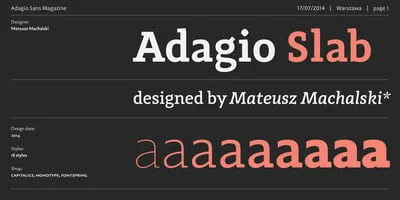
Adagio Slab Font
Adagio Slab Font is ideal for classical music venues, symphony orchestra branding, music conservatory materials, elegant concert hall signage, classical performance promotions, music education publications, opera house communications, chamber music festival graphics, piano recital programs, and sophisticated musical event advertising.
What makes Adagio Slab Font exciting is its melodic sophistication that perfectly captures the graceful tempo and emotional depth found in classical music performance and symphonic excellence. This typeface features harmonious slab serif letterforms with musical proportions and tempo-inspired details that evoke the measured beauty and artistic refinement of classical compositions. The font's melodious personality and classical authenticity make it ideal for musical institutions and cultural brands seeking to convey artistic excellence, emotional depth, and the timeless beauty that comes from classical music tradition and symphonic mastery.
Adagio Slab Font family includes tempo-perfect weight variations and musical alternatives that enhance its classical appeal while providing design flexibility for music and cultural applications. The font features rhythmic ligatures, symphony-inspired ornaments, and melodic character variations that create authentic classical atmosphere for musical and cultural branding.
Classical music organizations and cultural institutions consistently select Adagio Slab Font for projects requiring authentic musical appeal and classical credibility. The font's symphonic character excels in applications targeting classical music enthusiasts, cultural appreciators, and artistic communities who value genuine musical excellence and classical tradition. Whether you're designing for symphony orchestras, music schools, or classical performance venues, this harmonious typeface delivers the musical authenticity and classical elegance that resonates with audiences seeking genuine artistic excellence and the emotional depth that defines classical music tradition and symphonic performance mastery.